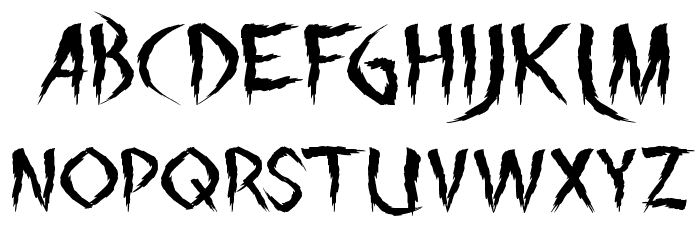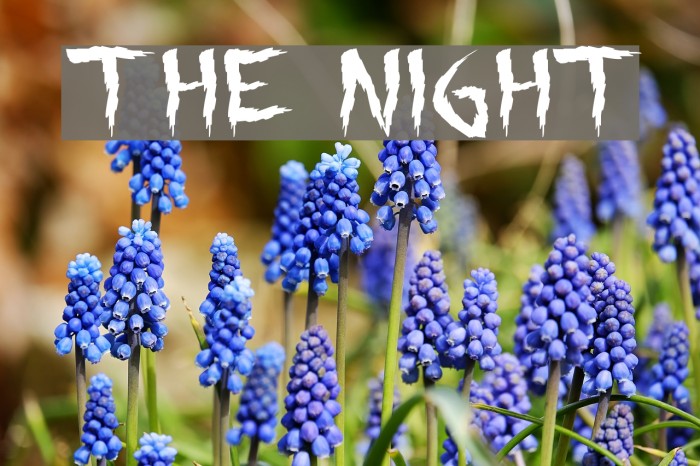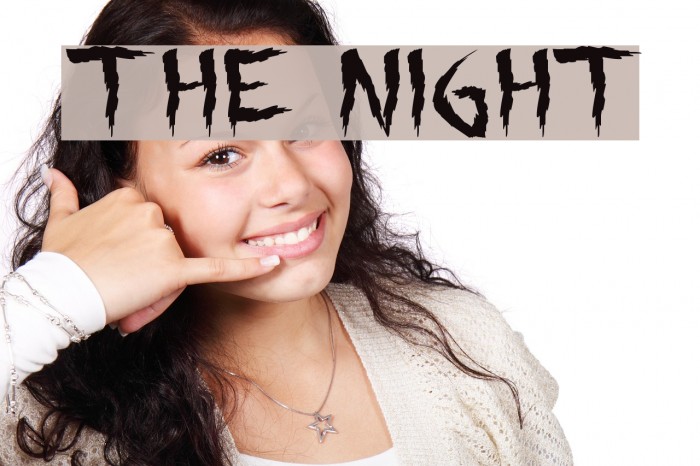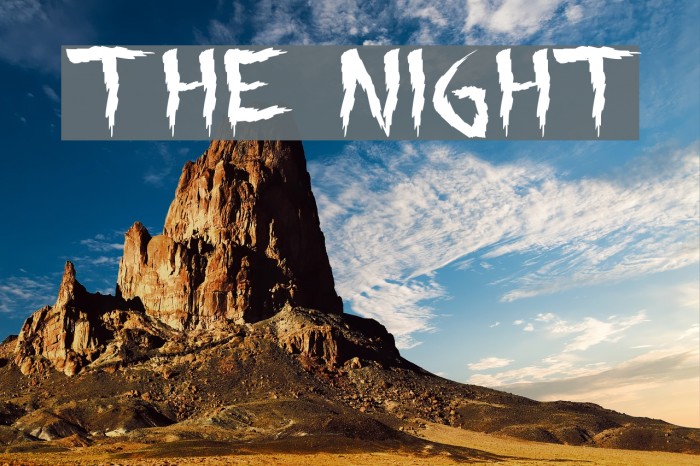
the night Font
This font features a bold, jagged style reminiscent of horror or thriller themes. The characters have sharp, irregular edges that give them a menacing appearance, perfect for creating an eerie atmosphere. The strokes are uneven, with some parts appearing thicker, enhancing the dramatic effect. This font is designed to capture attention and evoke a sense of mystery and suspense. It is ideal for projects that require a touch of the macabre or a spooky vibe, such as Halloween-themed designs, horror movie posters, or haunted house advertisements.
A bold, jagged font with a horror-themed, menacing appearance.
- Proposed Projects: Ideal for Halloween designs, horror movie posters, haunted house advertisements, and thriller book covers.